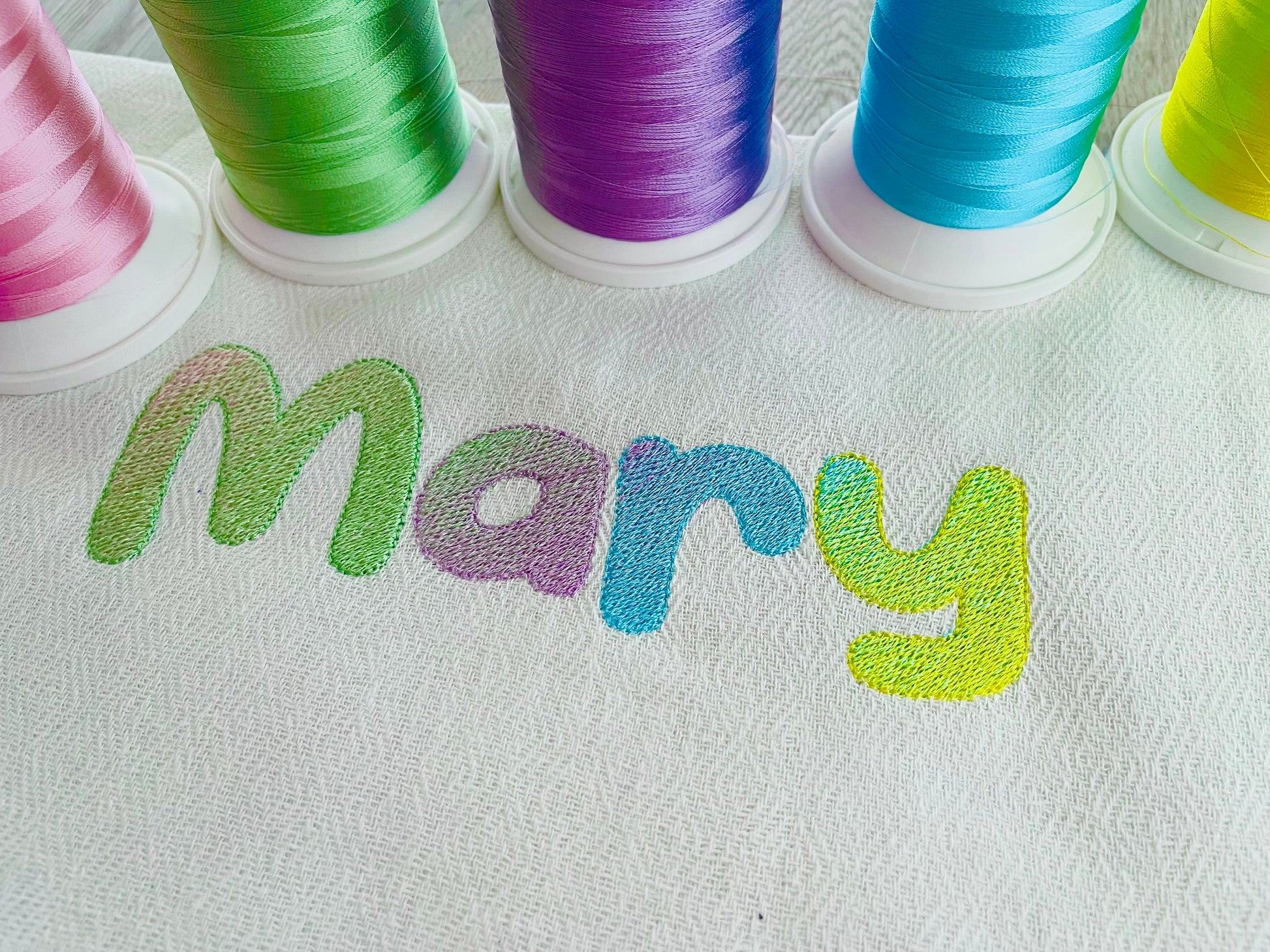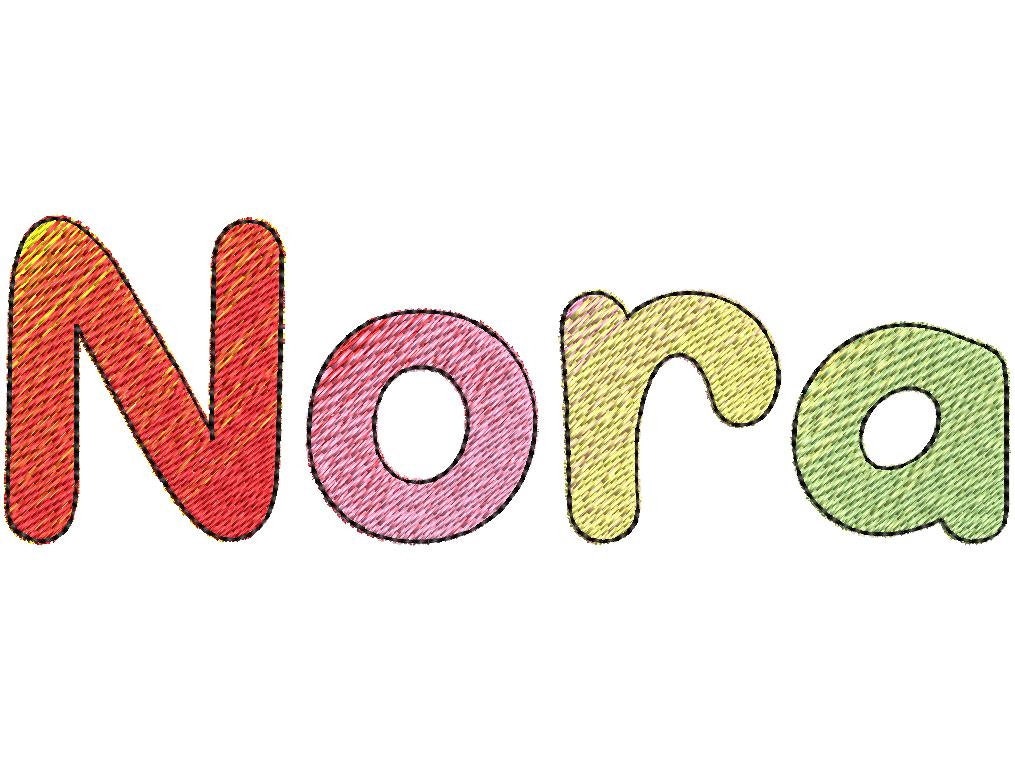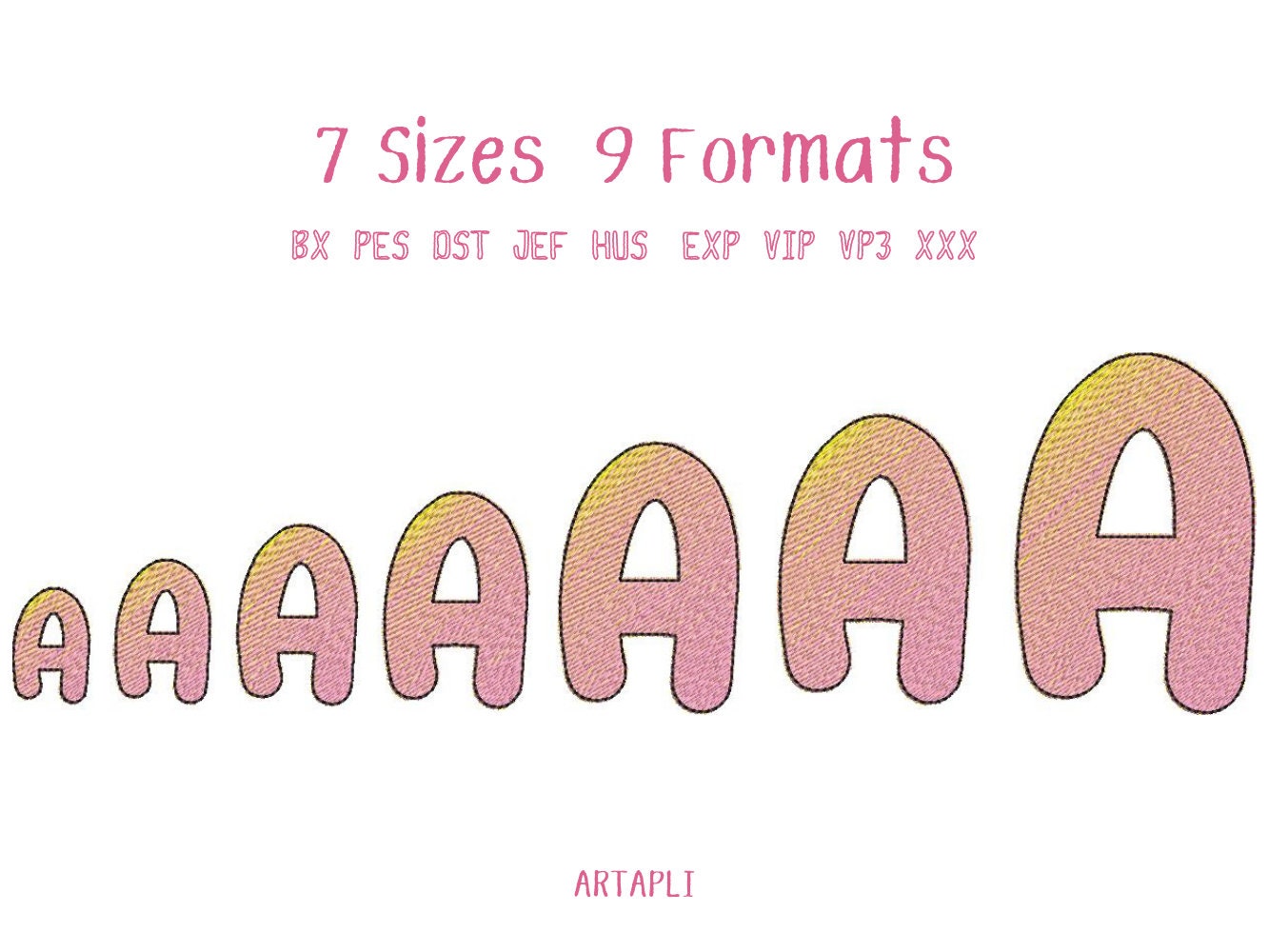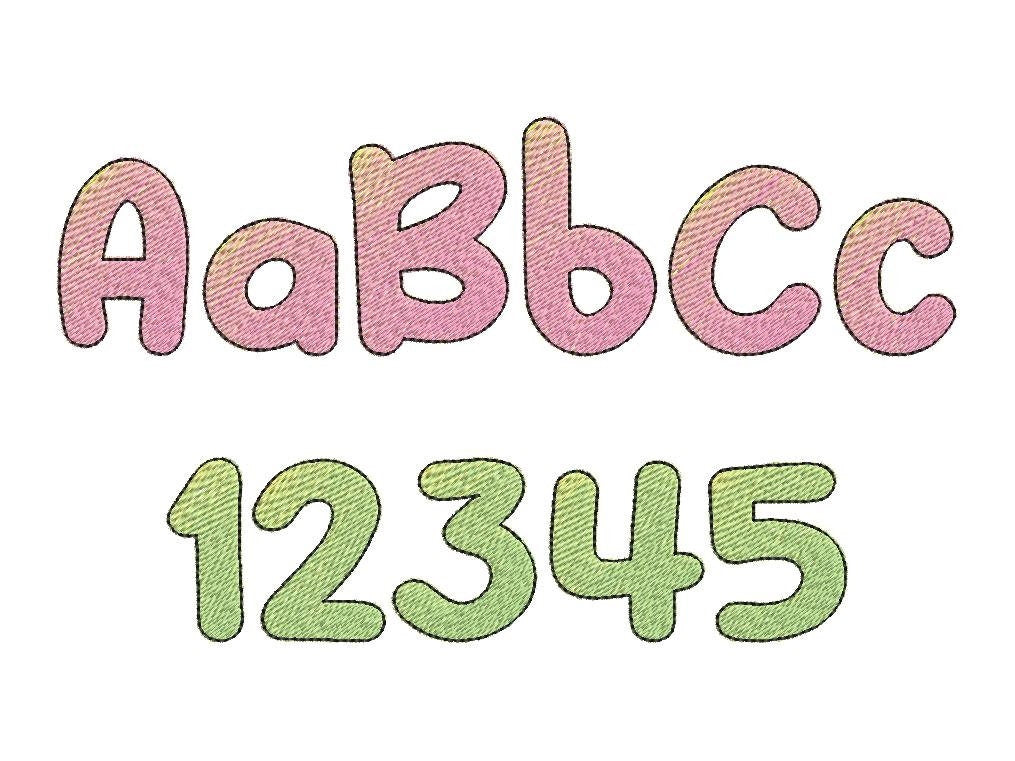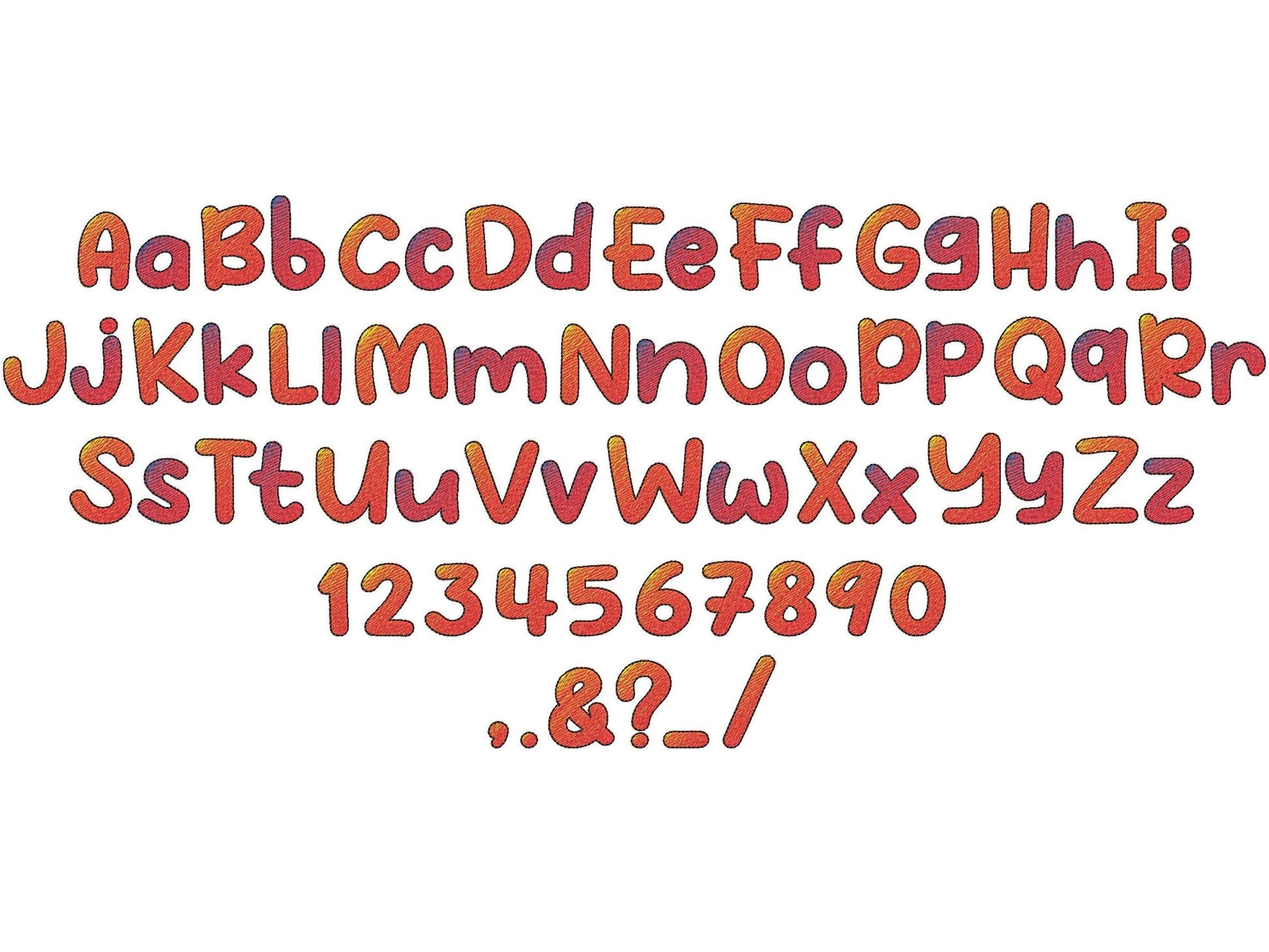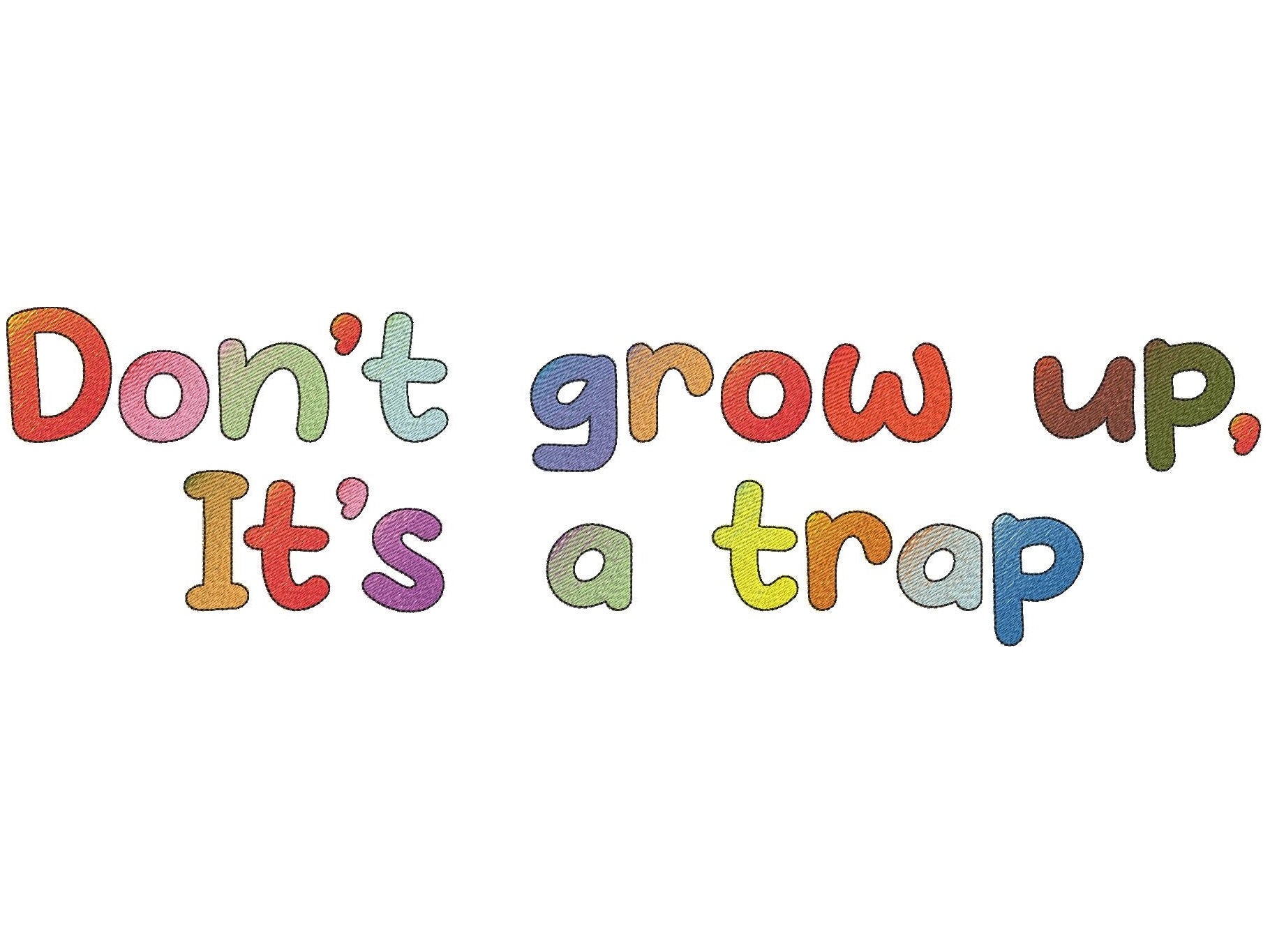
Or click to open the linkA rounded, playful iridescent font stitched with two ordinary thread colors per letter, no special thread needed. Fun for names, monograms and sayings.
Uppercase and lowercase letters, numbers 0 to 9 and punctuation, in seven sizes: 1.2, 1.5, 1.8, 2.2, 2.8, 3 and 3.7 inches. Each letter shifts from one color to the other for a gradient effect.